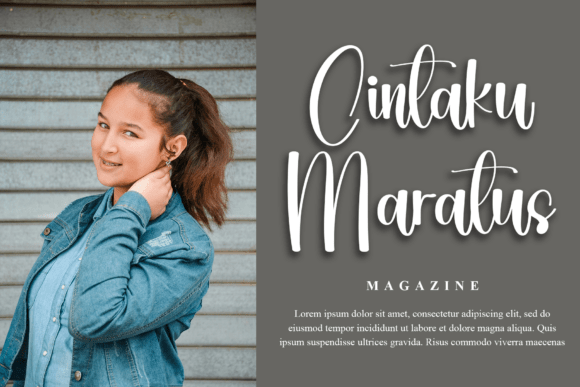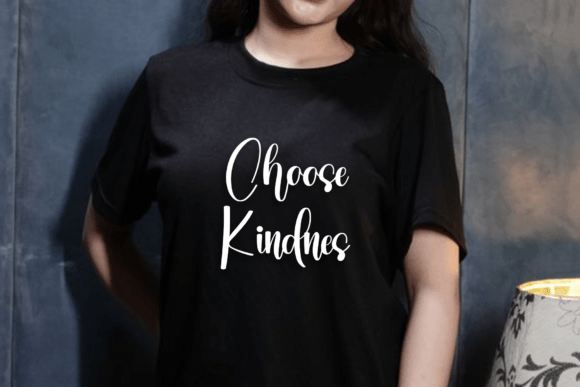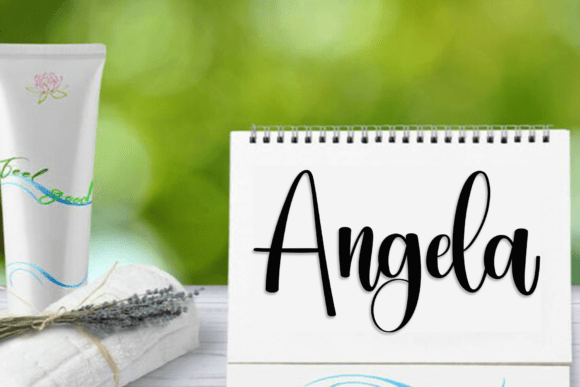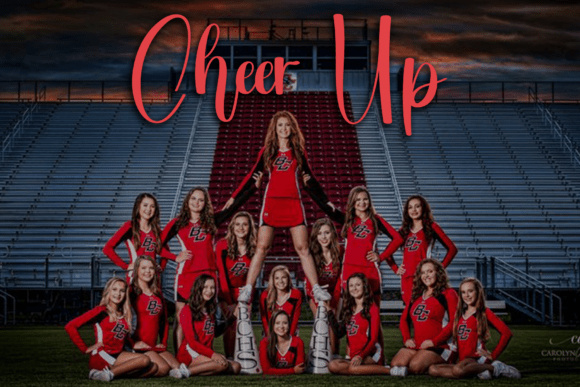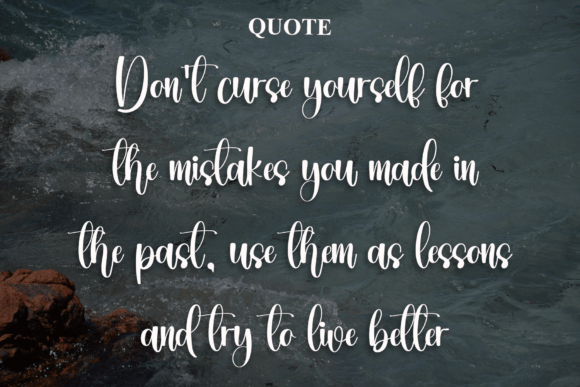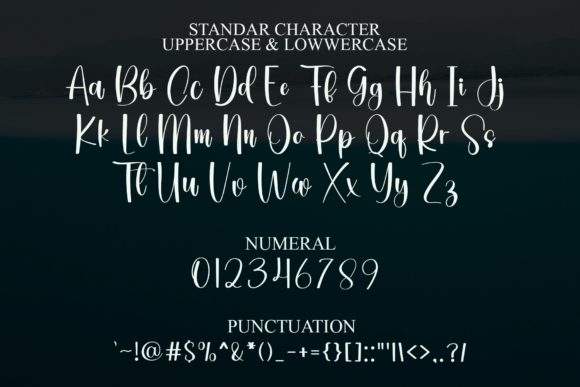
Introduction to Simple Photoshop Font
Simple Photoshop is a casual and creative font that exudes warmth and friendliness.
Key Features of Simple Photoshop Font
Why Choose Simple Photoshop Font?